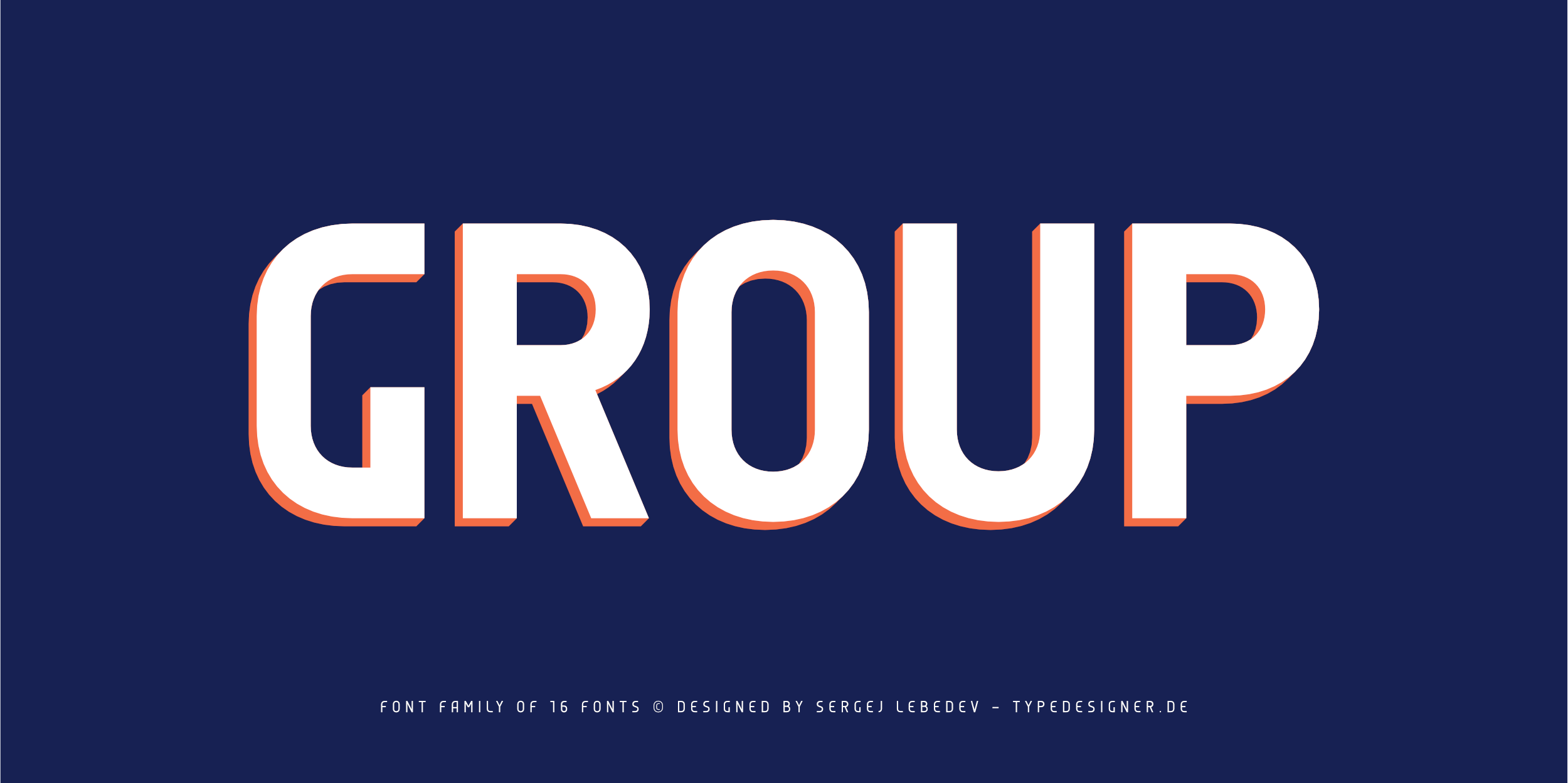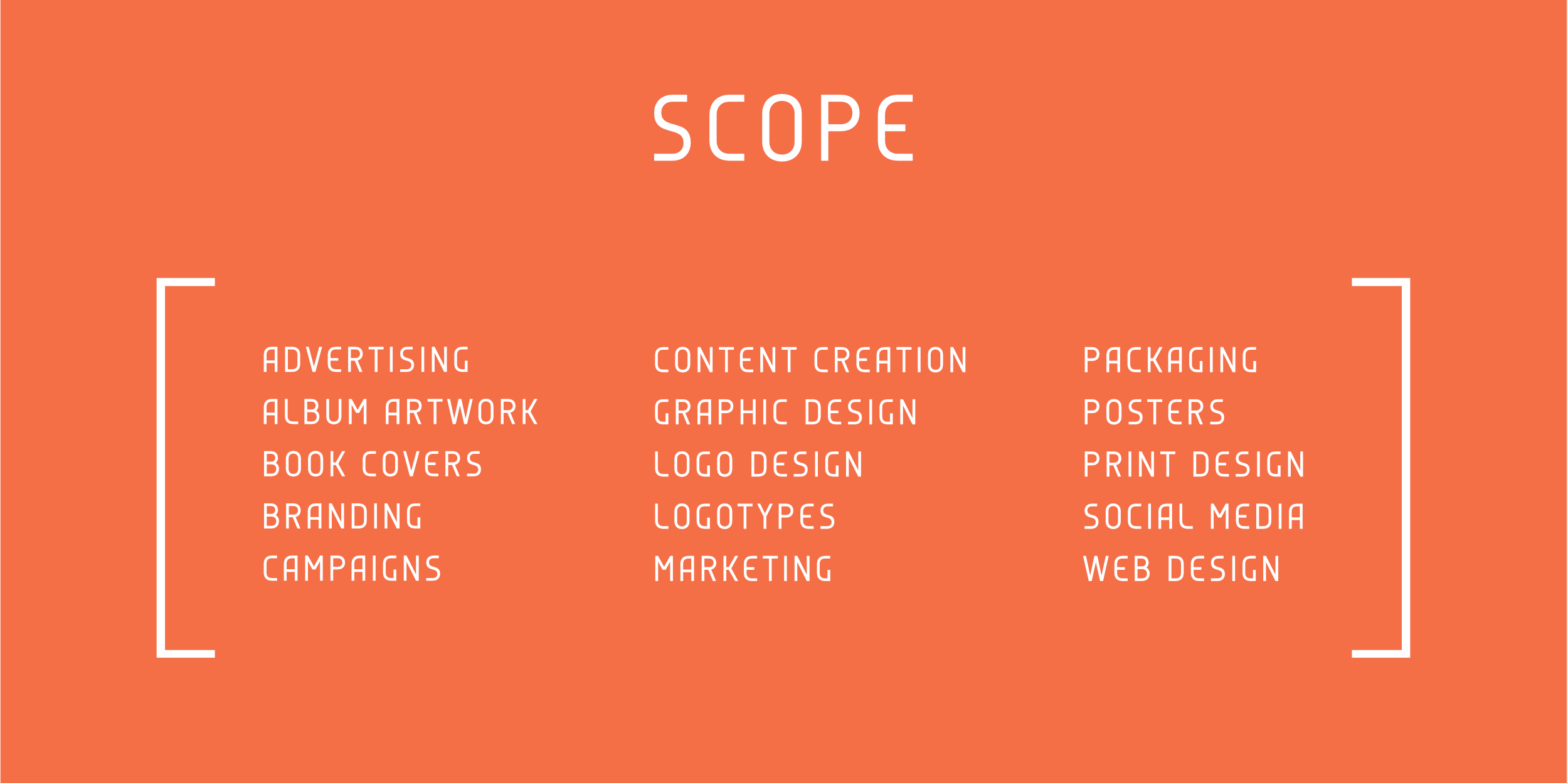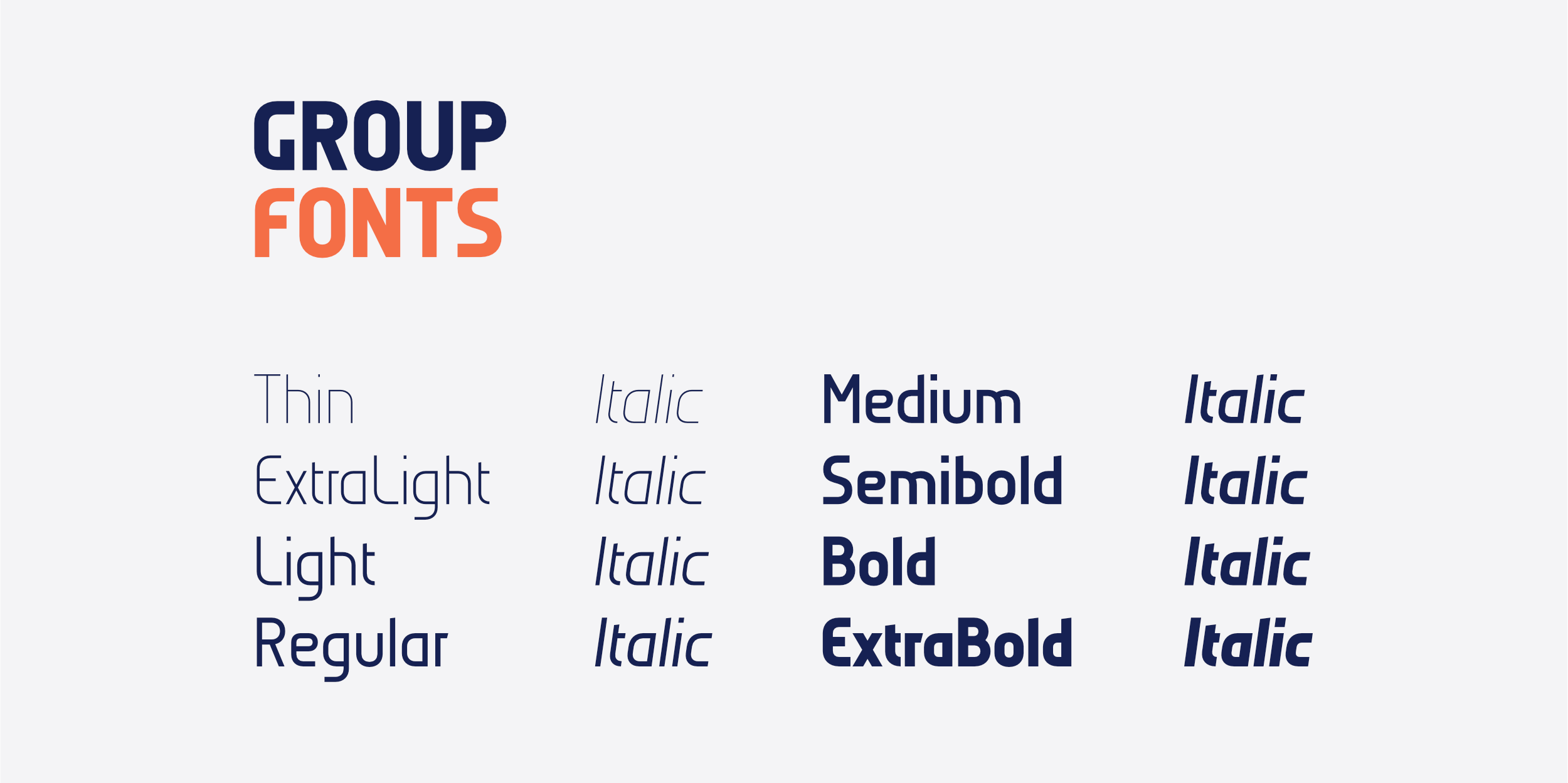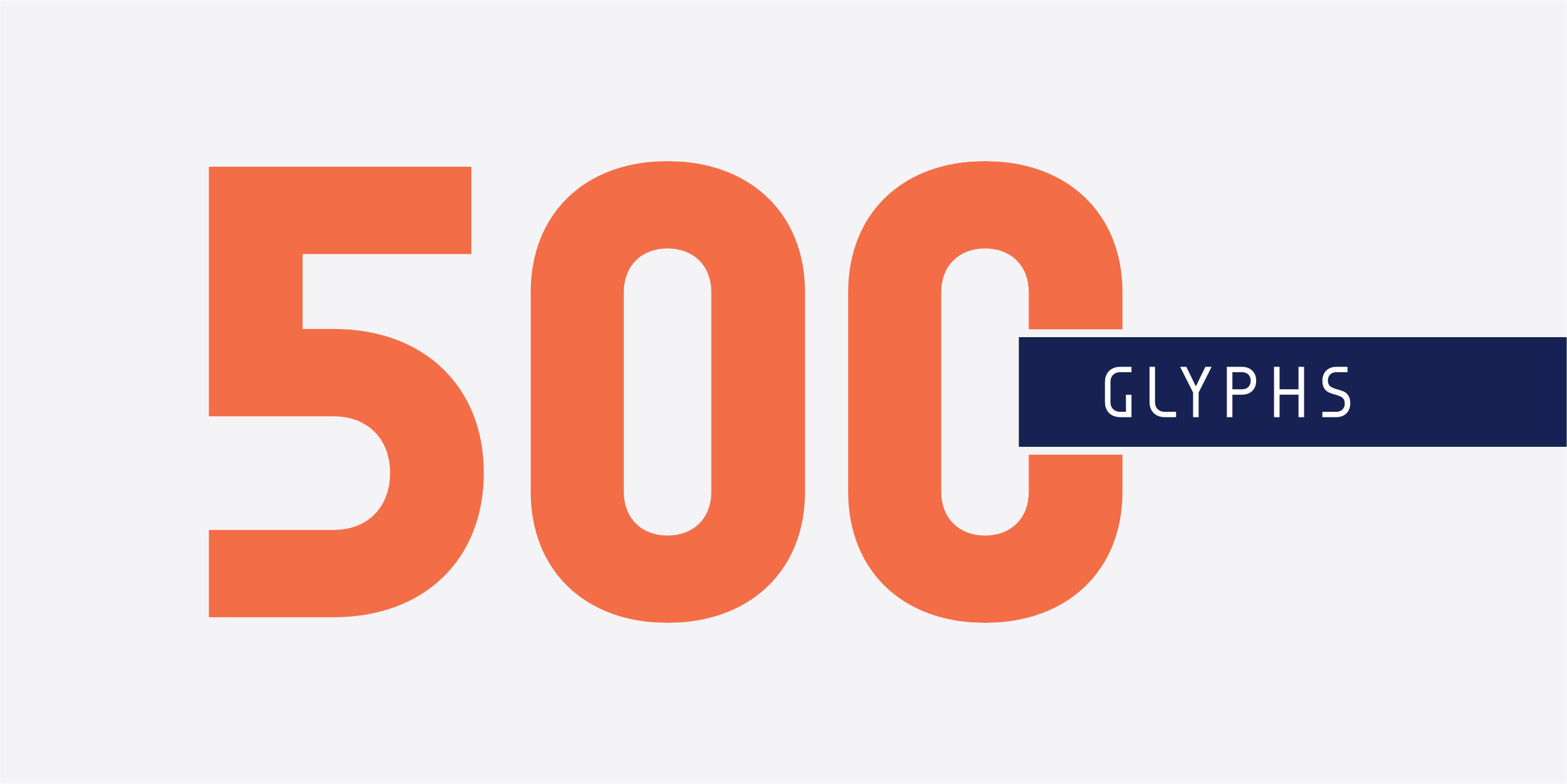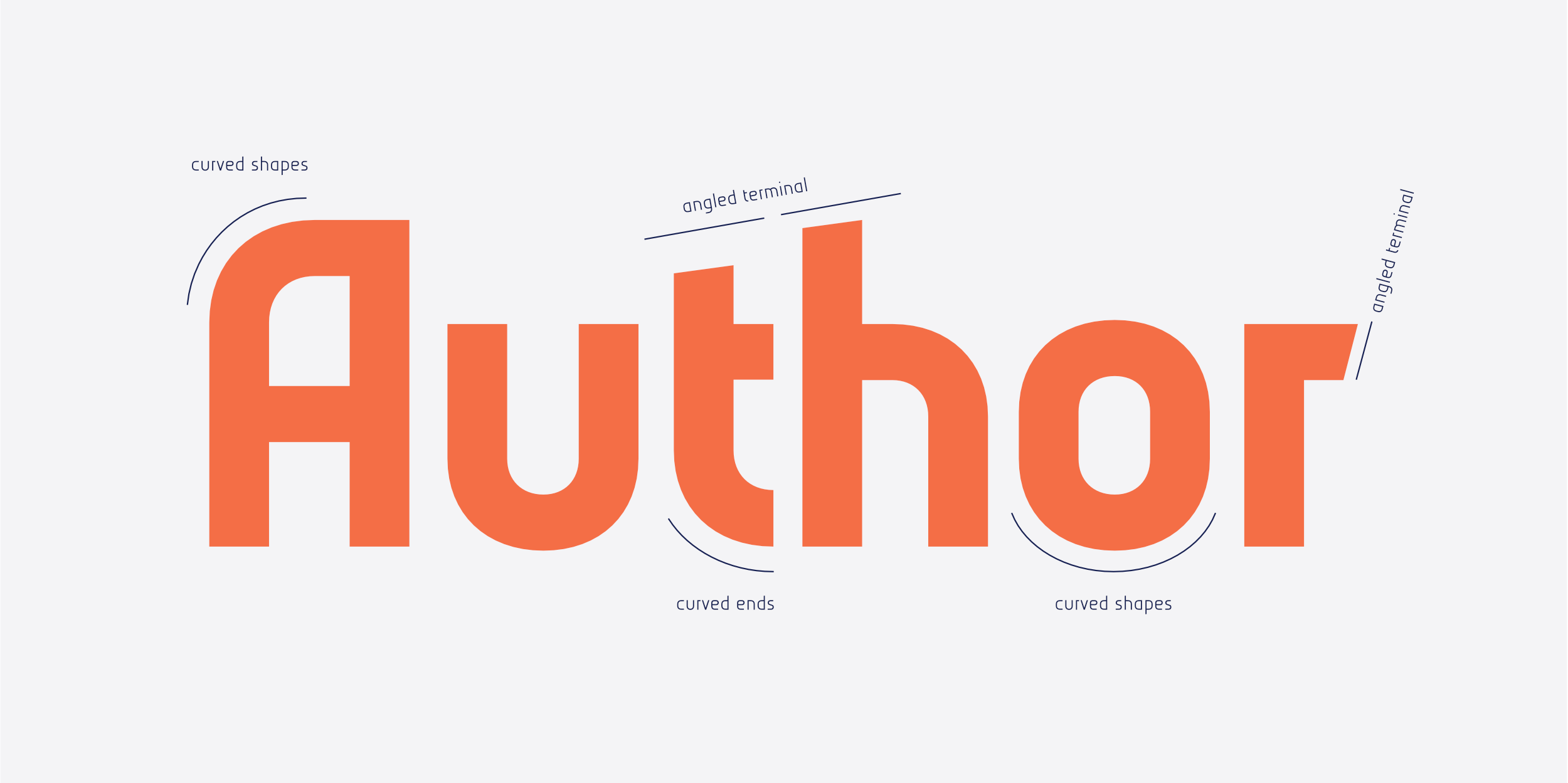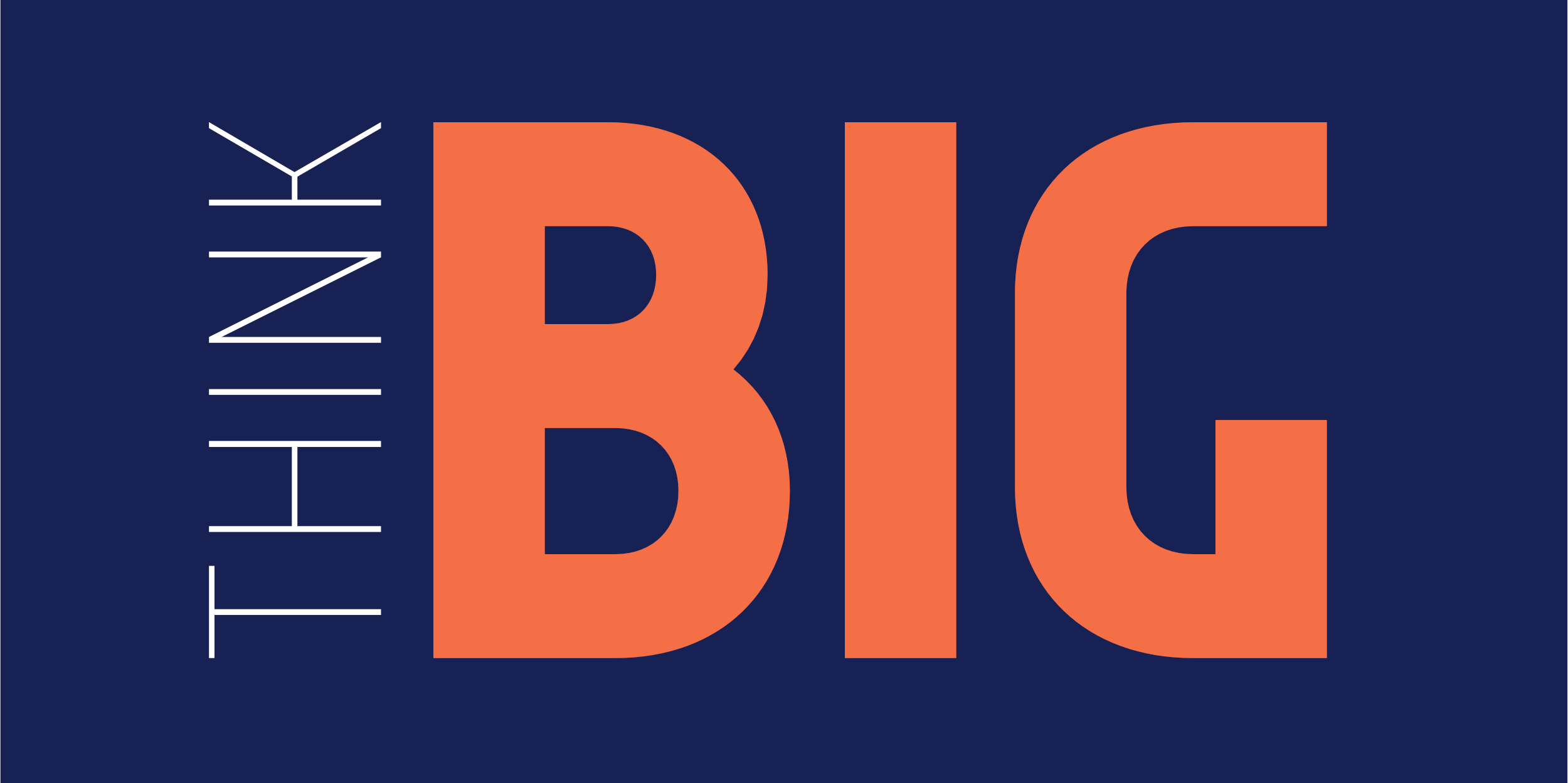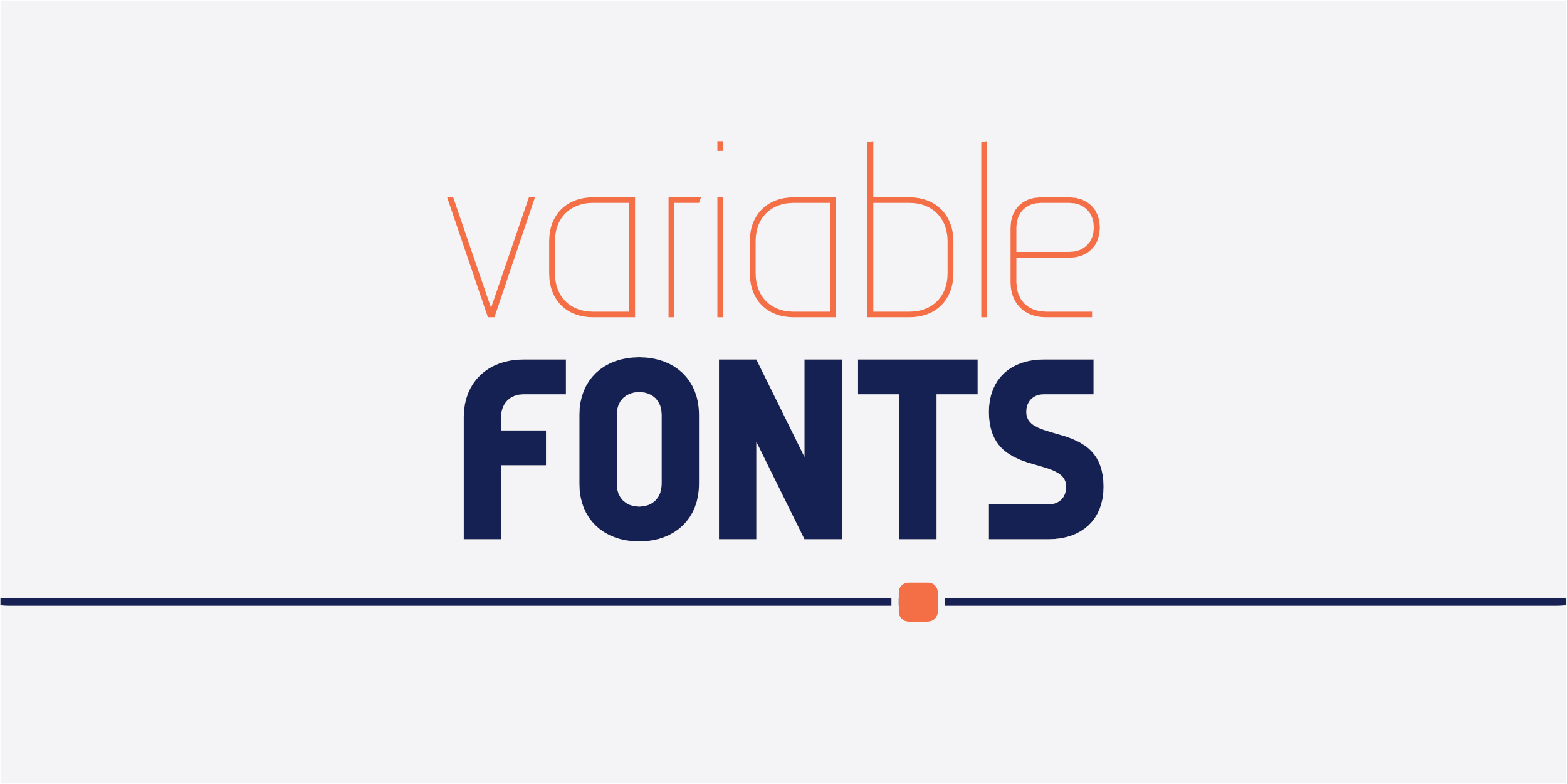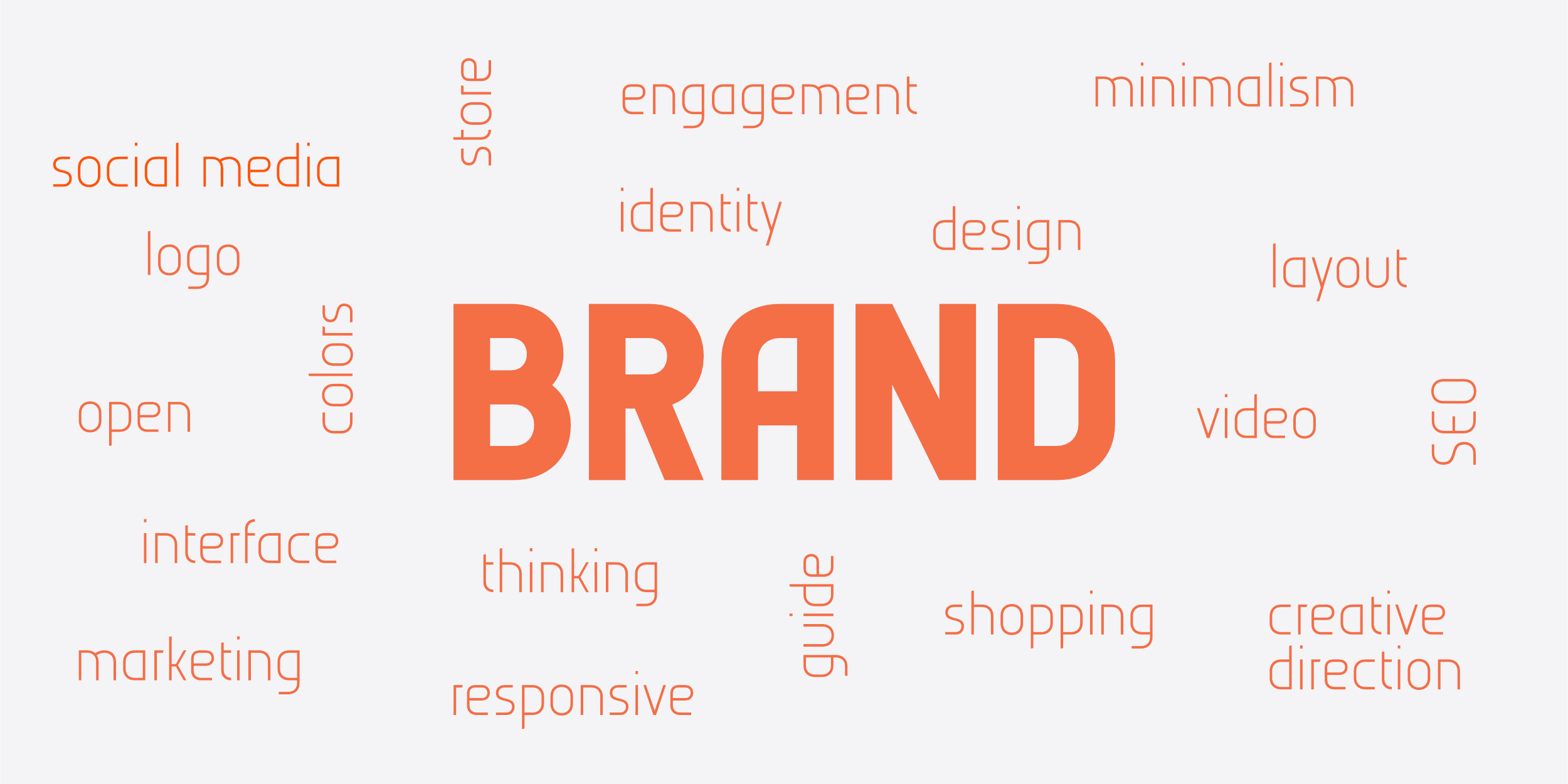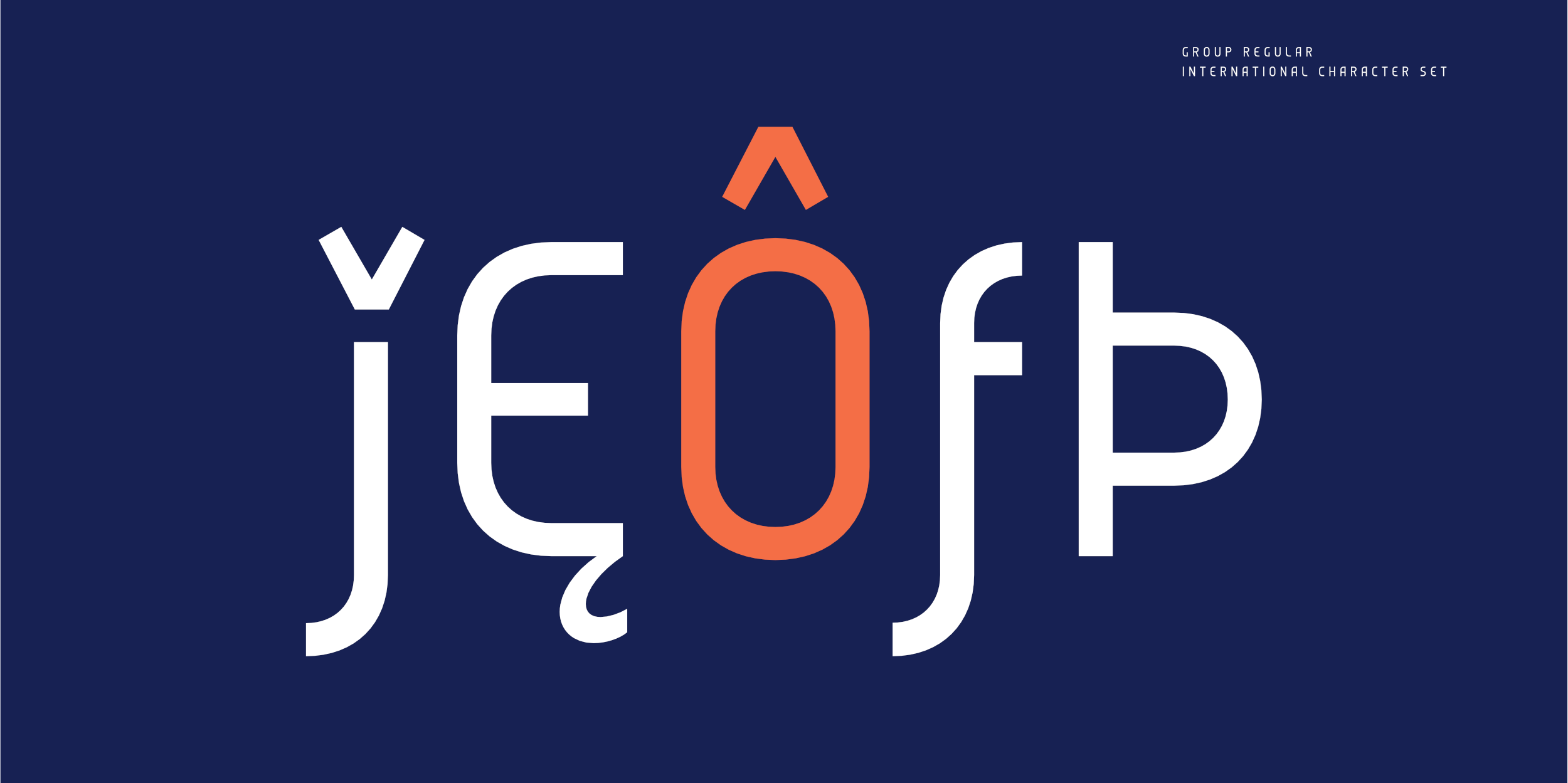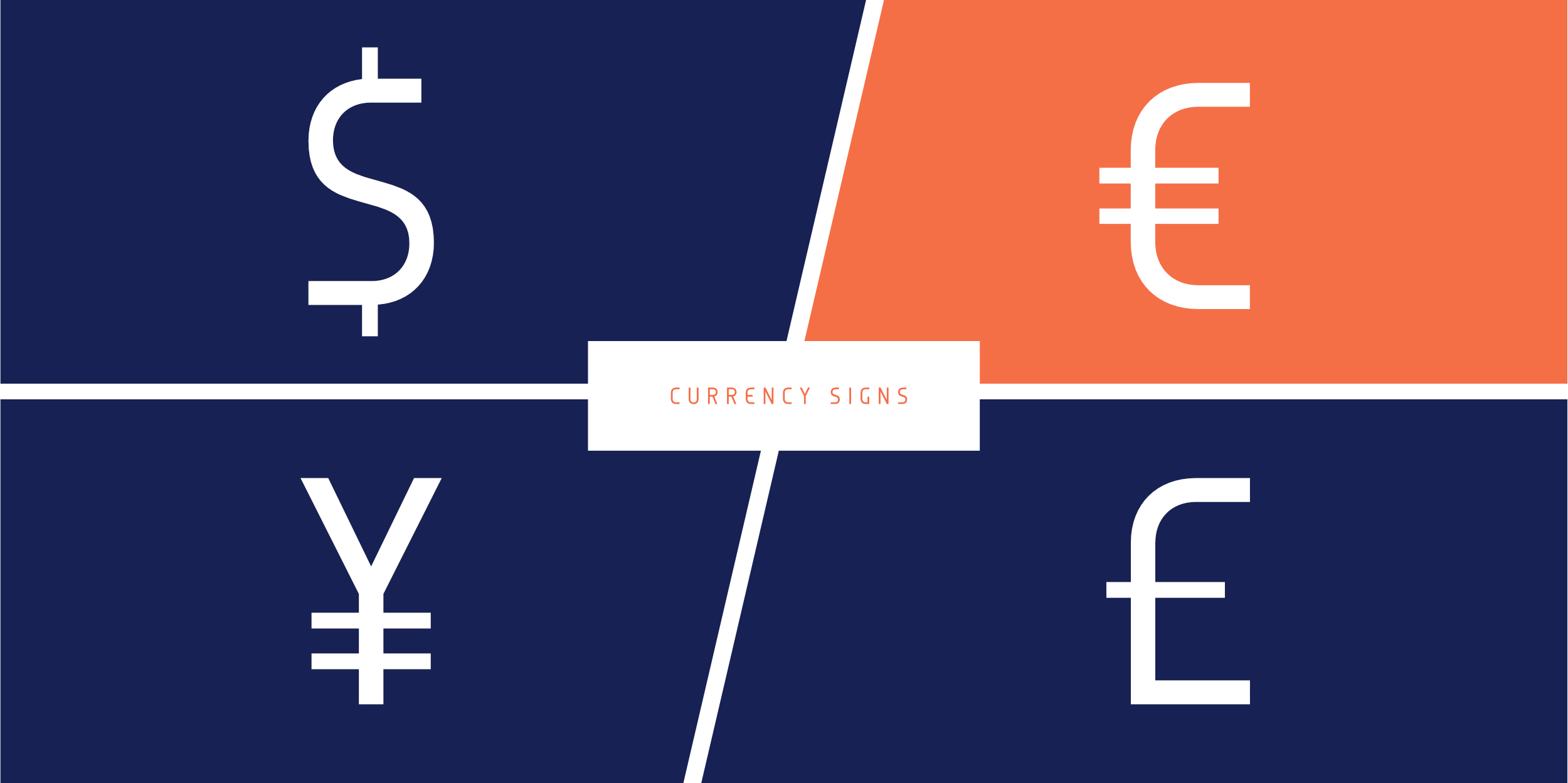
Group – Display Typeface
Group is a modern display typeface family consisting of 16 styles and two variable fonts. It features a distinctive character, monolinear shapes, and a clean geometric design language. The letterforms are defined by modern proportions and precise detailing, giving the typeface a unique and contemporary appearance.
The font family includes eight weights – from Thin to Extra Bold – each with matching italics. This wide range offers versatile design possibilities for creating a consistent yet expressive typographic identity. Group is perfectly suited for logo design, branding, editorial, and graphic design. With its balanced construction and refined aesthetics, it delivers a clear visual presence in both print and digital applications.
Featuring an international character set and a variety of OpenType features, Group is the ideal choice wherever clarity, expressiveness, and a modern character are required. Group combines personality with bold form – a typeface made for striking visual statements.